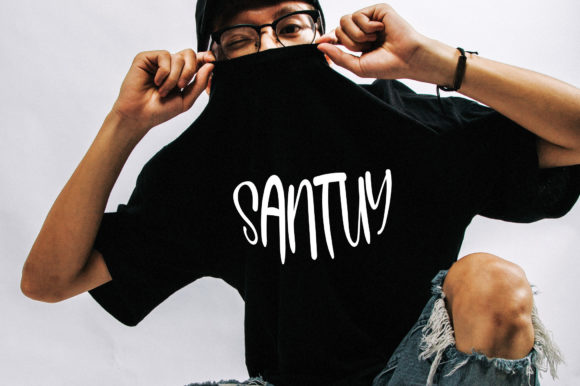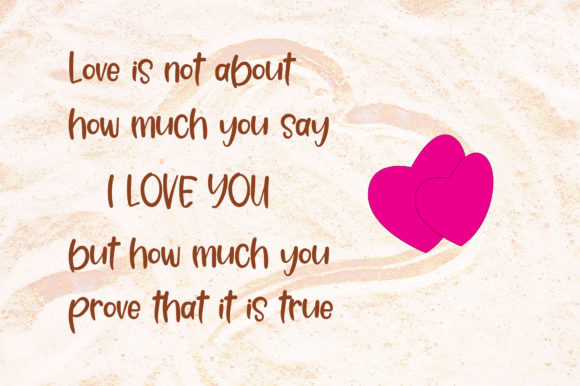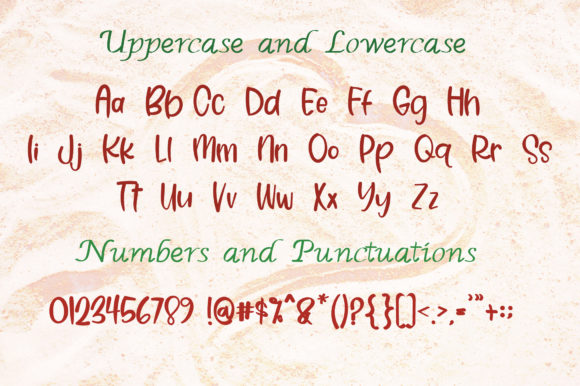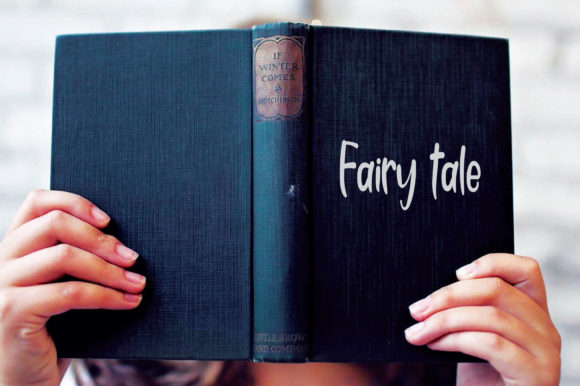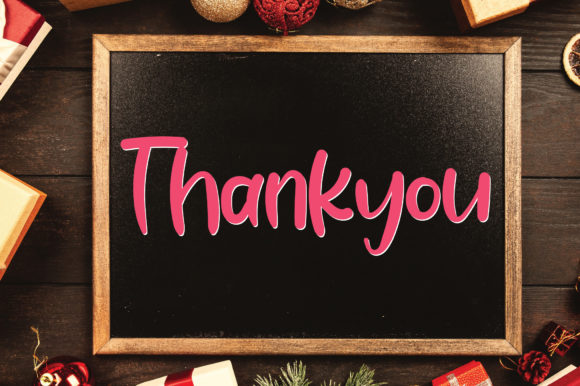
Introducing Always Be Loved Font: The Whimsical Script Font for Every Design Need
In the world of typography, a font can make or break a design. It’s the perfect blend of style, elegance, and personality that can elevate a creation from ordinary to extraordinary. For designers and crafters looking for a font that exudes a sense of whimsy and relaxation, look no further than Always Be Loved Font. This lovely script font is about to become your new go-to, and for good reason.
The Charm of Always Be Loved Font
Always Be Loved Font is a script font that embodies a relaxed theme, making it perfect for a wide range of design projects. Its whimsical nature gives it a unique charm that can add a touch of personality to any creation. Whether you’re working on a branding project, a wedding invitation, or a DIY craft, this font is sure to impress.
Key Features of Always Be Loved Font
- Whimsical Script Style: Always Be Loved Font features a beautiful, flowing script style that’s perfect for creating eye-catching designs.
- Relaxed Theme: The font’s relaxed theme makes it ideal for designs that require a laid-back, effortless feel.
- Versatility: This font can be used for a wide range of projects, from digital designs to print materials.
- Elegant and Playful: Always Be Loved Font strikes the perfect balance between elegance and playfulness, making it suitable for various design applications.
Why Always Be Loved Font is a Must-Have
- Instant Recognition: The unique style of Always Be Loved Font makes it instantly recognizable, adding a touch of personality to your designs.
- Emotional Connection: The whimsical nature of this font helps create an emotional connection with your audience, making your designs more relatable and engaging.
- Endless Possibilities: From social media graphics to branding materials, Always Be Loved Font can be used for a wide range of projects, offering endless possibilities for creative expression.
Design Ideas Using Always Be Loved Font
- Wedding Invitations: Add a touch of romance and whimsy to your wedding invitations with Always Be Loved Font.
- Branding Materials: Use this font to create unique and memorable branding materials, such as logos, business cards, and letterheads.
- Social Media Graphics: Create eye-catching social media graphics, such as Instagram posts and Facebook banners, with Always Be Loved Font.
- DIY Crafts: Add a personal touch to your DIY crafts, such as handmade cards and gift tags, with this beautiful script font.
Always Be Loved Font is a versatile and charming script font that’s sure to become a staple in your design library. Its whimsical nature, relaxed theme, and elegant style make it perfect for a wide range of design projects. Whether you’re a designer or a crafter, this font is an incredibly valuable asset that can elevate any creation. So why wait? Get creative with Always Be Loved Font and bring a touch of personality to your designs!